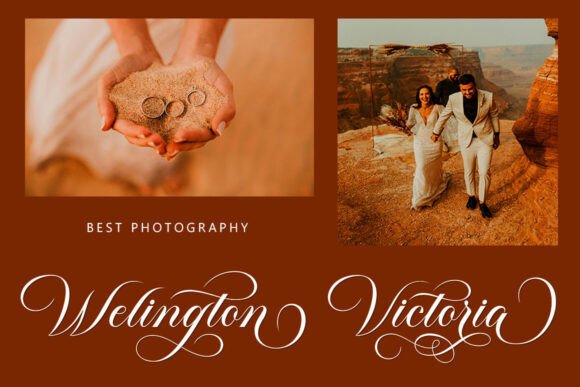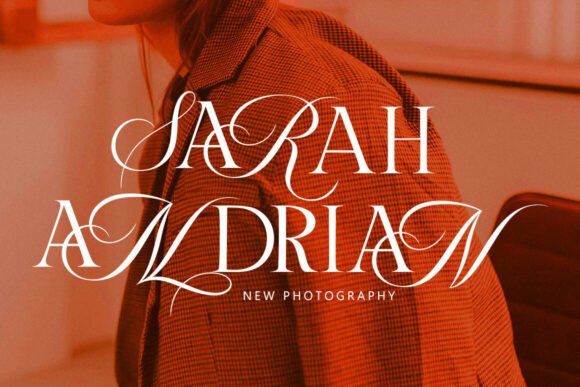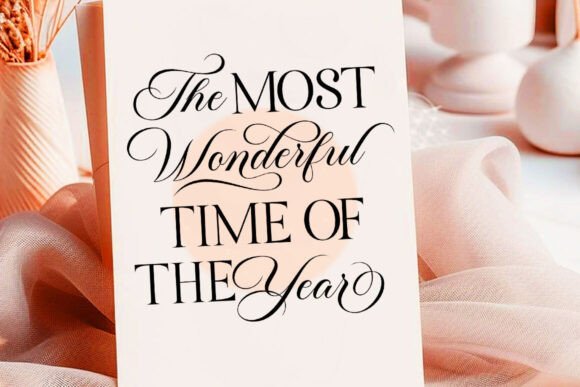
Besty Serif Font
Introducing Besty Serif Font Duo. This luxurious script font and timeless serif font were designed perfectly for each other—not only are they strong standalone fonts, but they pair beautifully when placed side by side. Feeling creative? These fonts can even be mixed in the same word for an even more interesting layout, giving you a versatile font set that you can use & love across a variety of design projects.Besty Serif Font Duo is an elegant serif typeface that was made to stand out. With stunning contrast, organic curves, and crisp letters, Kalista Elegant is a phenomenal choice for any project, whether it focuses on luxury branding or typefaces. This font is perfect for many projects, for modern or even retro vintage designs, branding, logos, crafts, stickers, sublimation, wedding invitations, and more. This font is suitable for various projects such as logos, brands, magazines, signage, fashion, and more.